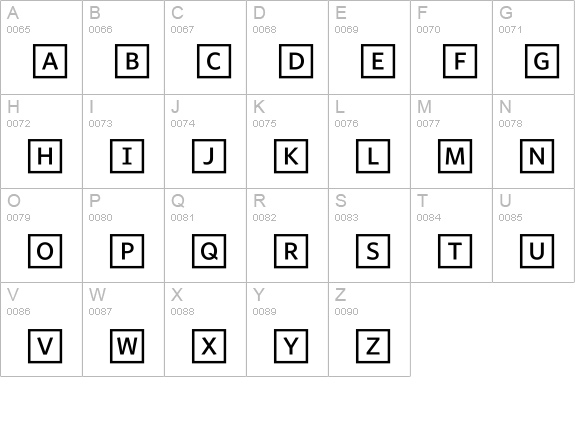
WhitneyIndexWhite-SquareMd font is a modern and elegant typeface that adds a touch of sophistication to any design project. With its clean lines and squared edges, this font exudes a sense of professionalism and style. The medium weight of this font strikes a perfect balance between boldness and subtlety, making it suitable for a wide range of applications. This font is not only visually appealing but also highly versatile. Whether you are designing a logo, creating a website, or crafting a promotional material, WhitneyIndexWhite-SquareMd font will elevate your design to a whole new level. Its legibility and clarity make it ideal for both large headlines and small body text, ensuring that your message is effectively communicated. One of the best things about WhitneyIndexWhite-SquareMd font is that it is available for free download at FontsMarket.com. This means that you can easily access and use this font without any cost. Whether you are a professional designer or a novice enthusiast, this free font is a valuable resource that allows you to enhance your designs without breaking the bank. With its sleek and contemporary design, WhitneyIndexWhite-SquareMd font is perfect for various design projects, such as branding, packaging, editorial design, and more. Its versatility and availability make it a must-have for any designer's font collection. Download WhitneyIndexWhite-SquareMd font for free at FontsMarket.com and discover the limitless possibilities it offers for your design projects. Whether you are looking to create a bold and eye-catching design or a refined and elegant layout, this font will undoubtedly exceed your expectations. Don't miss out on this incredible opportunity to enhance your designs with a high-quality font that is both visually stunning and freely available.